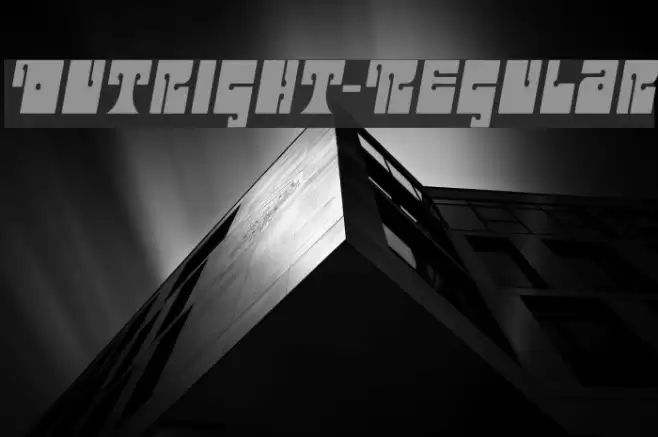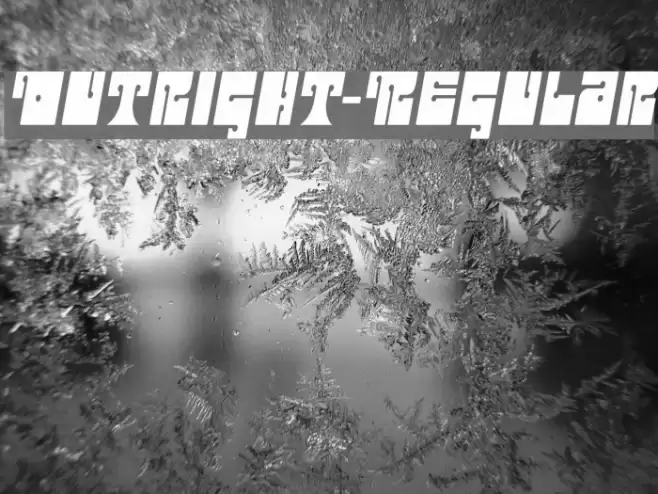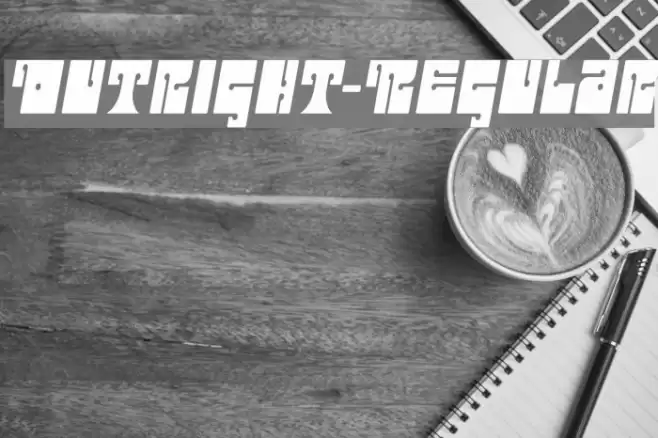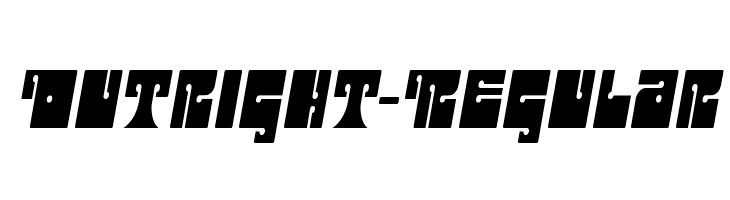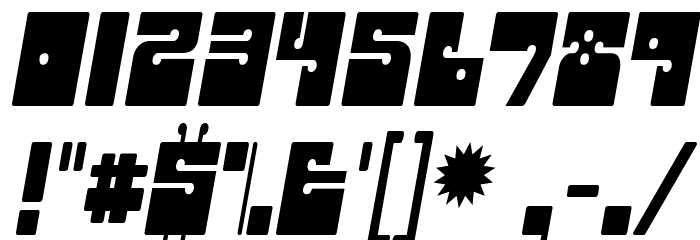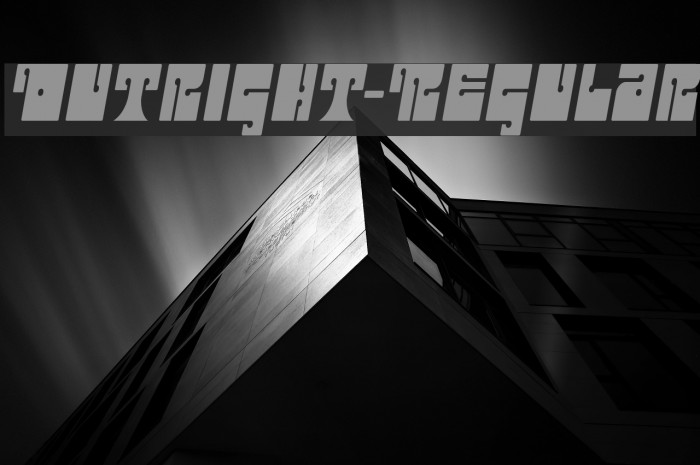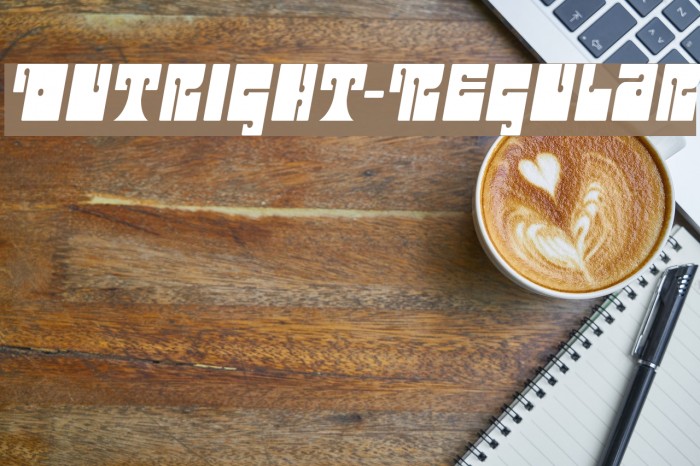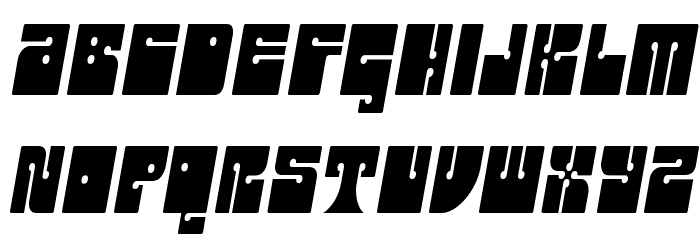
Outright-Regular Font
Outright-Regular Description
This font features a bold and striking design, characterized by its thick, blocky letters with unique cutouts and geometric shapes. The uppercase and lowercase letters maintain a consistent style, with angular edges and a futuristic appearance. Numbers and special characters follow the same bold and distinctive pattern, making the font highly recognizable. The overall design is reminiscent of retro-futuristic themes, with a touch of playfulness due to the unconventional shapes and cutouts within the characters.
A bold, geometric font with unique cutouts and a retro-futuristic style from Uncategorized fonts.
- Overall Style: Retro-Futuristic